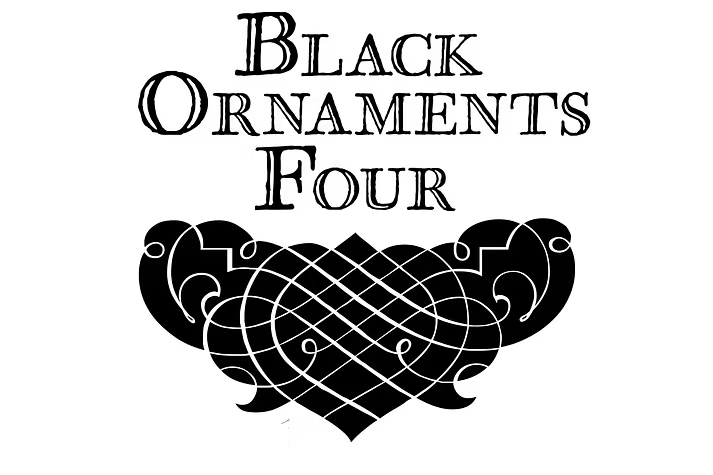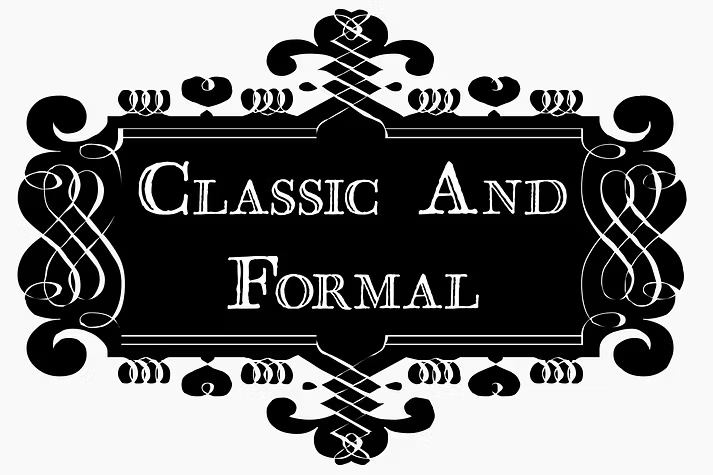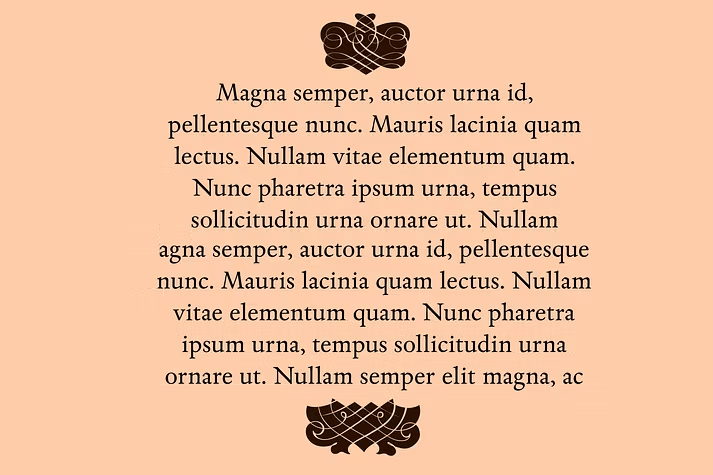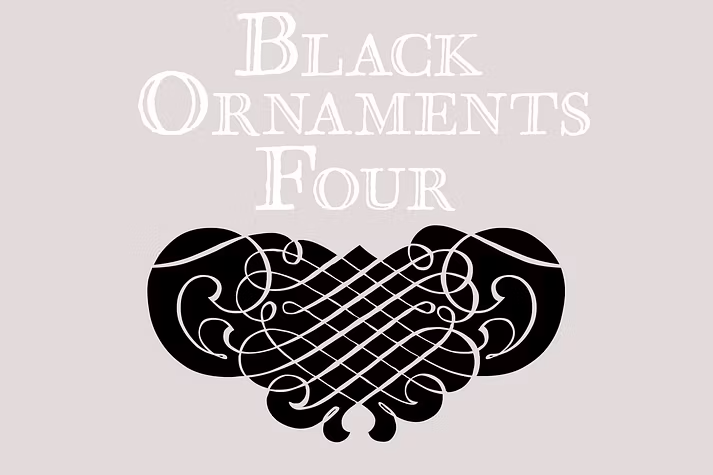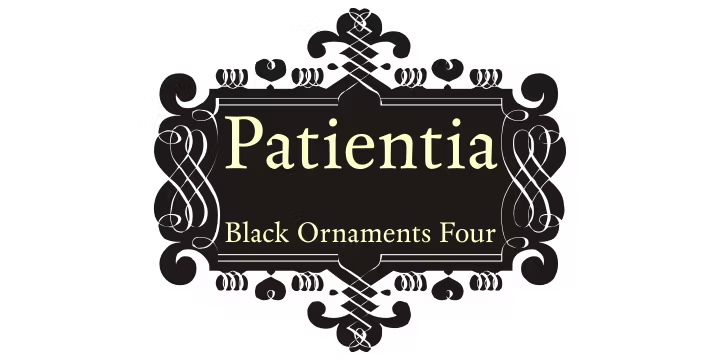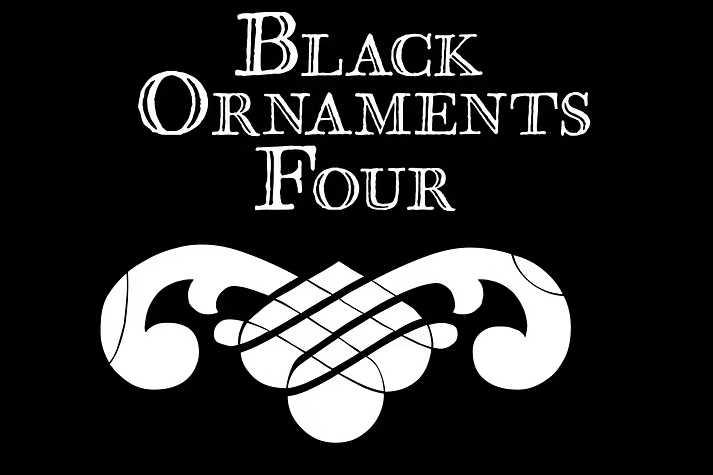
Black Ornaments Four
Font Family by Intellecta Design
Black Ornaments is a family of ornament/dingbat fonts, inspired by the CalligraphiaLatina font series. Is excellent for use in editorial works of art and publishing, as the cover of books, headpieces, packaging, magazines and many other solutions.